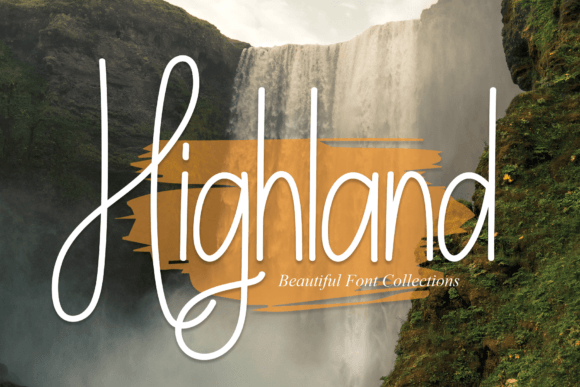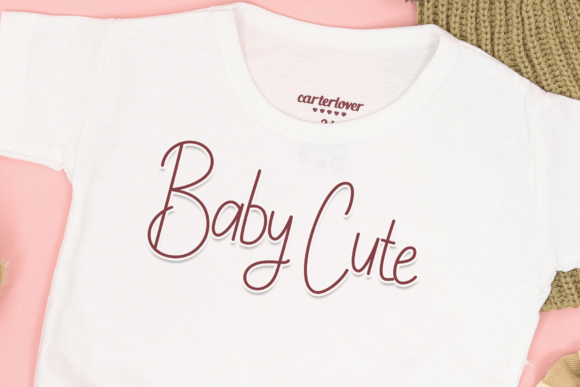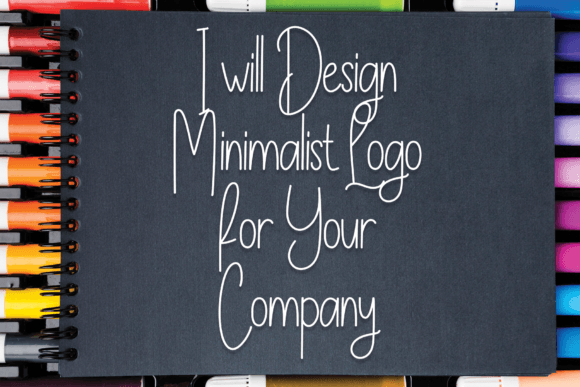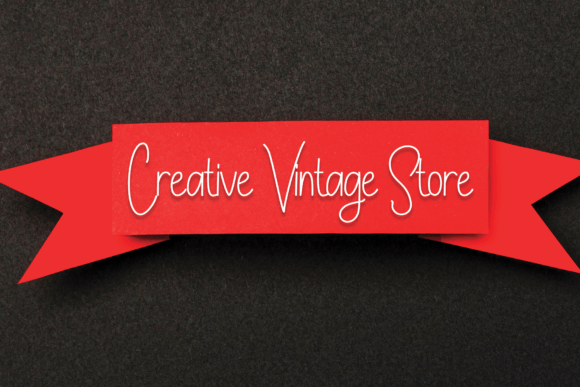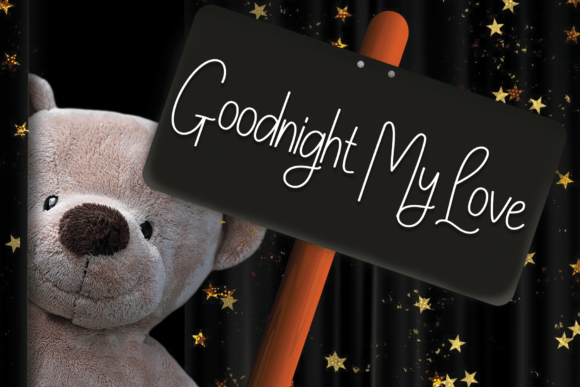
Highland Font
About Highland Font Download
The Highland Font Download is a fun and friendly handwritten typeface designed to bring charm, warmth, and personality to your creative projects. With its casual handwritten strokes and approachable style, this font feels natural and engaging, making it suitable for both personal and professional designs. Whether you’re working on DIY crafts, presentations, or digital content, Highland adds a welcoming touch.
A Handwritten Typeface with Character
Highland captures the essence of authentic handwriting with smooth, playful curves. Unlike stiff or formal fonts, it conveys friendliness and creativity while maintaining clarity. The Highland Font Download makes text feel approachable and unique, which is why it works so well for projects that need personality and originality.
Perfect for Crafts and DIY Projects
Crafters love fonts that look handmade yet polished, and Highland fits that description perfectly. From scrapbooking and embroidery patterns to wall art and greeting tags, this font enhances DIY projects with ease. The Highland Font Download provides a polished look while keeping the handmade feel intact, making your crafts feel authentic and special.
Great for Greeting Cards and Invitations
Greeting cards and invitations require fonts that feel personal and emotional. Highland’s handwritten style adds charm to thank you notes, birthday greetings, and wedding invitations. The Highland Font Download transforms ordinary text into heartfelt designs that resonate with recipients and make every card more memorable.
Ideal for Digital Design and Social Media
In the digital space, fonts must be eye-catching yet easy to read. Highland achieves this balance, making it perfect for Instagram posts, Pinterest pins, blog headers, and YouTube thumbnails. The Highland Font Download integrates seamlessly with design tools like Canva, Photoshop, and Illustrator, making it versatile for creators at all levels.
A Friendly Choice for Presentations
Presentations should be clear, engaging, and visually appealing. Highland’s casual yet stylish strokes make slideshows more inviting while ensuring readability. Students, teachers, and professionals can all benefit from the Highland Font Download to create presentations that stand out without losing professionalism.
Versatile for All Occasions
Highland is highly adaptable and can be used for personal projects as well as business needs. It works well for branding, logos, packaging, and promotional content. At the same time, hobbyists can enjoy it for crafts and cards. The Highland Font Download is a reliable choice that suits both print and digital platforms.
Why Designers Choose Highland
Designers appreciate Highland because it combines creativity with usability. Many handwritten fonts become difficult to read at smaller sizes, but Highland stays legible while maintaining its friendly character. The Highland Font Download offers both charm and practicality, which is why it is a favorite among professionals and hobbyists alike.
Add Warmth to Your Projects Today